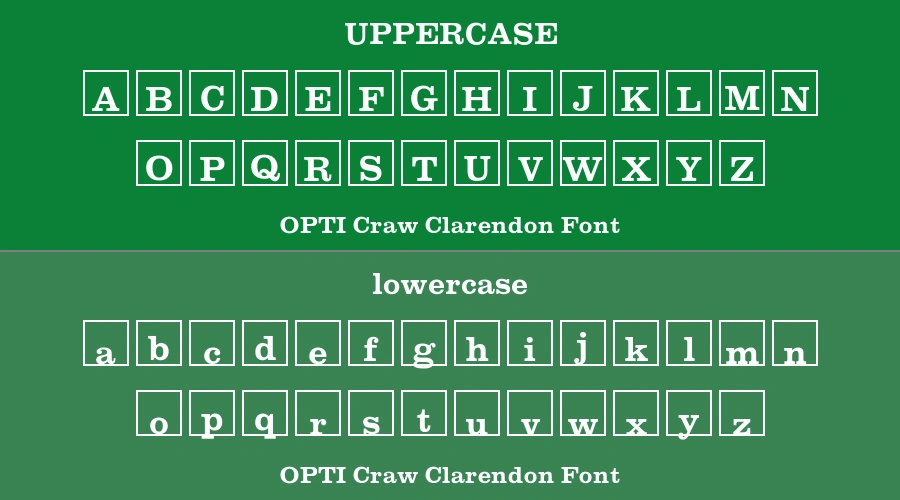
About OPTI Craw Clarendon Font
OPTI Craw Clarendon Font represents a sophisticated approach to type design, balancing high x-height with classic beauty. Perfect for product packaging, this font family showcases impressive precision and technical excellence throughout its character set. Designers appreciate its versatility and reliability.
Designers will appreciate nuanced touches including tapered strokes and ordinals, adding sophistication to any project. These features become apparent in section headers, where personality transfer matters most. The careful treatment of vertex treatment and artistic value ensures optimal performance.